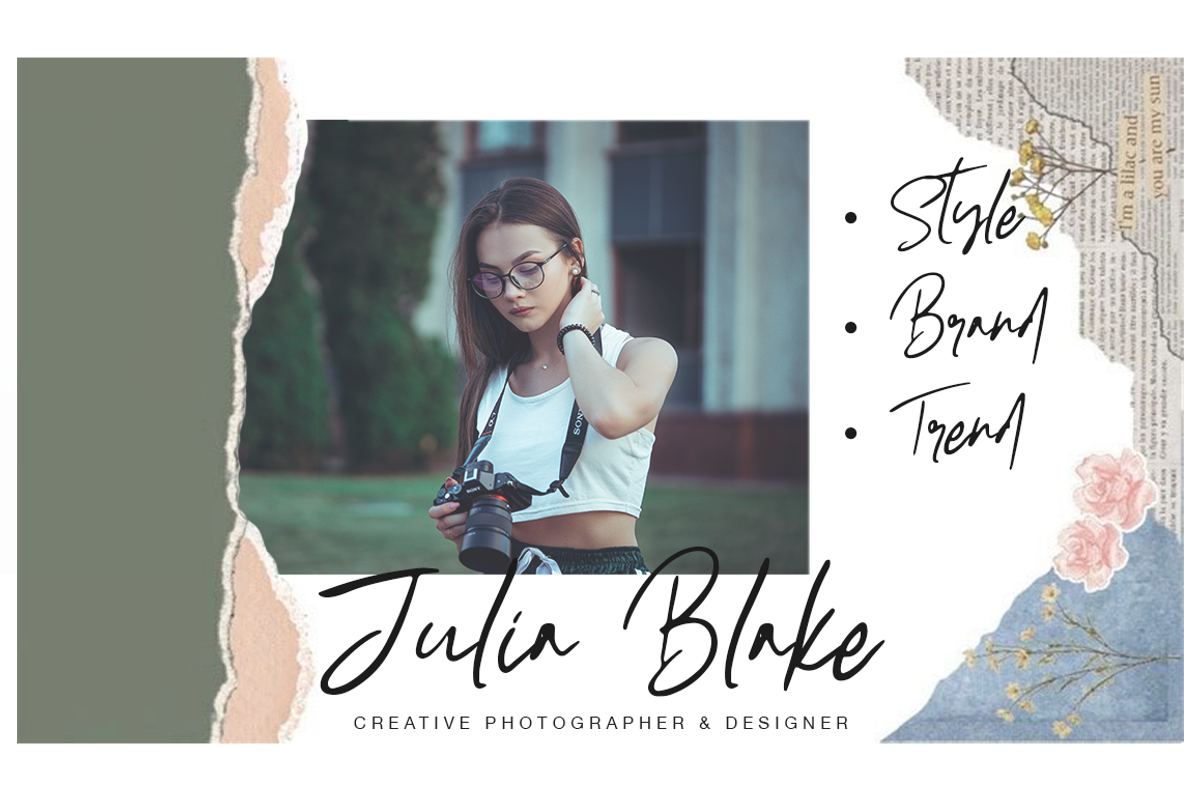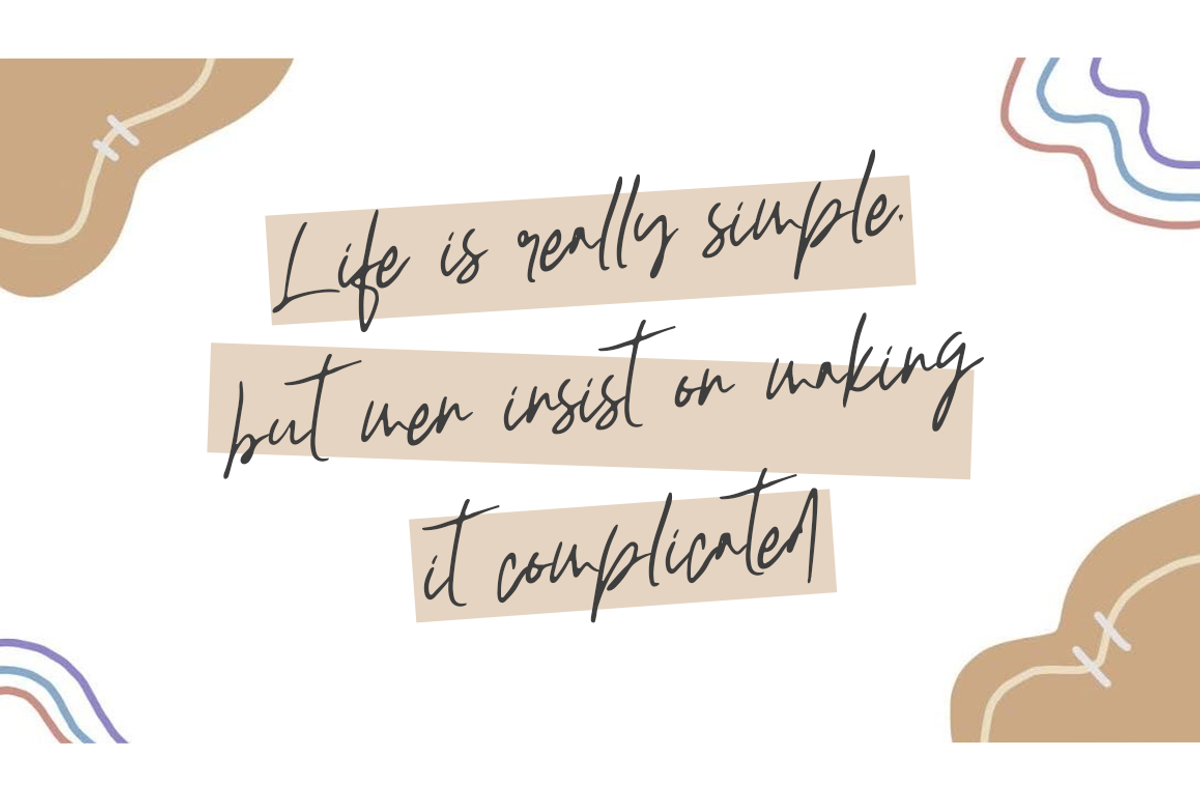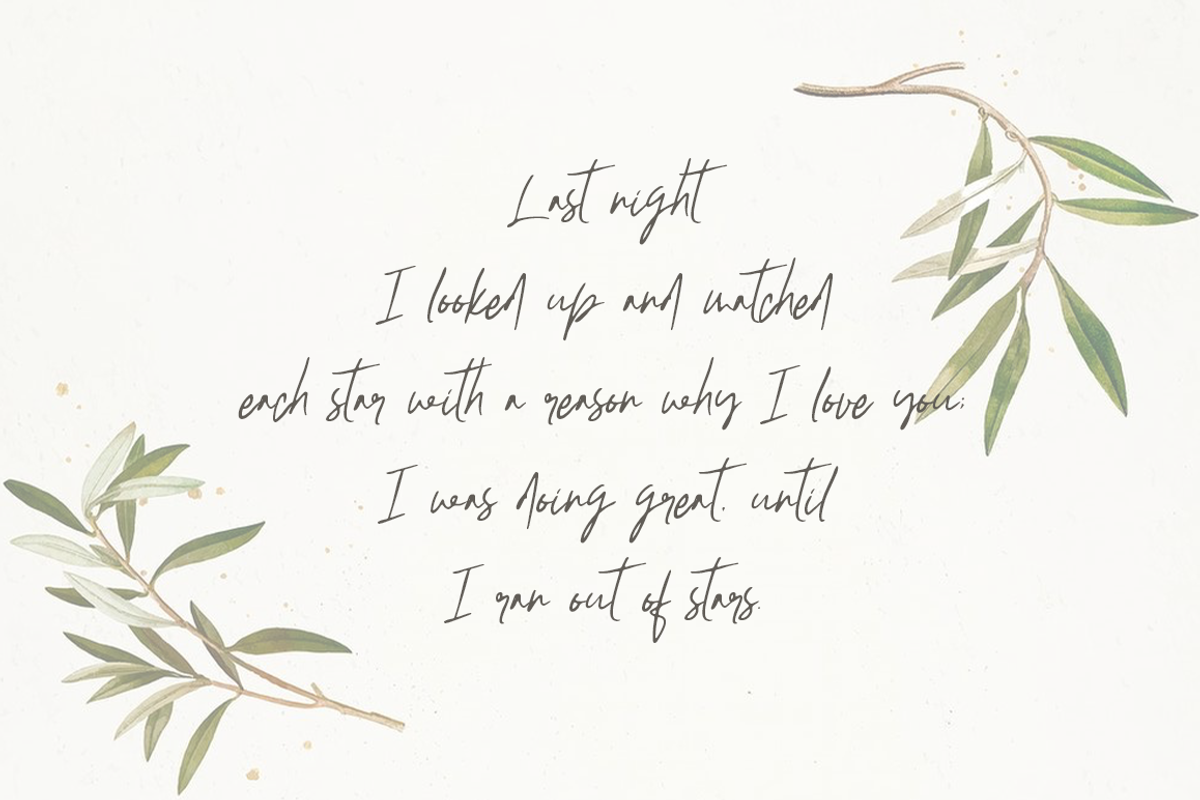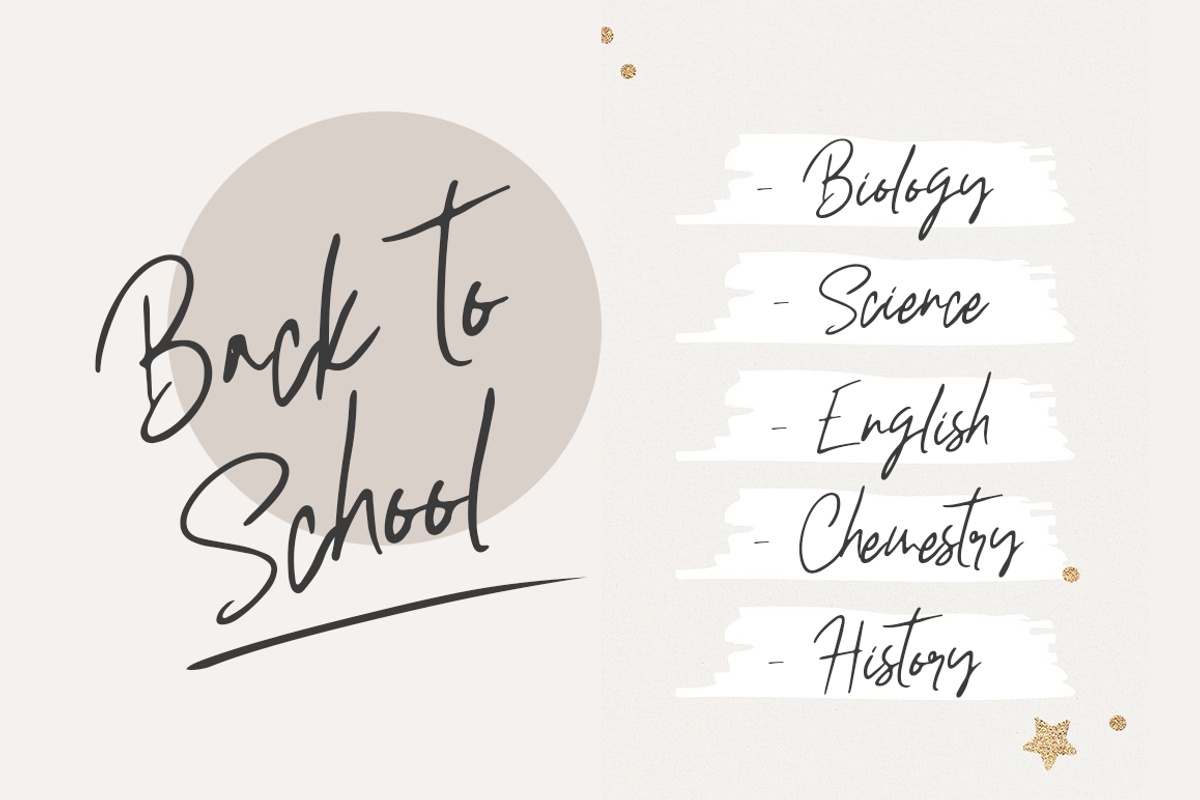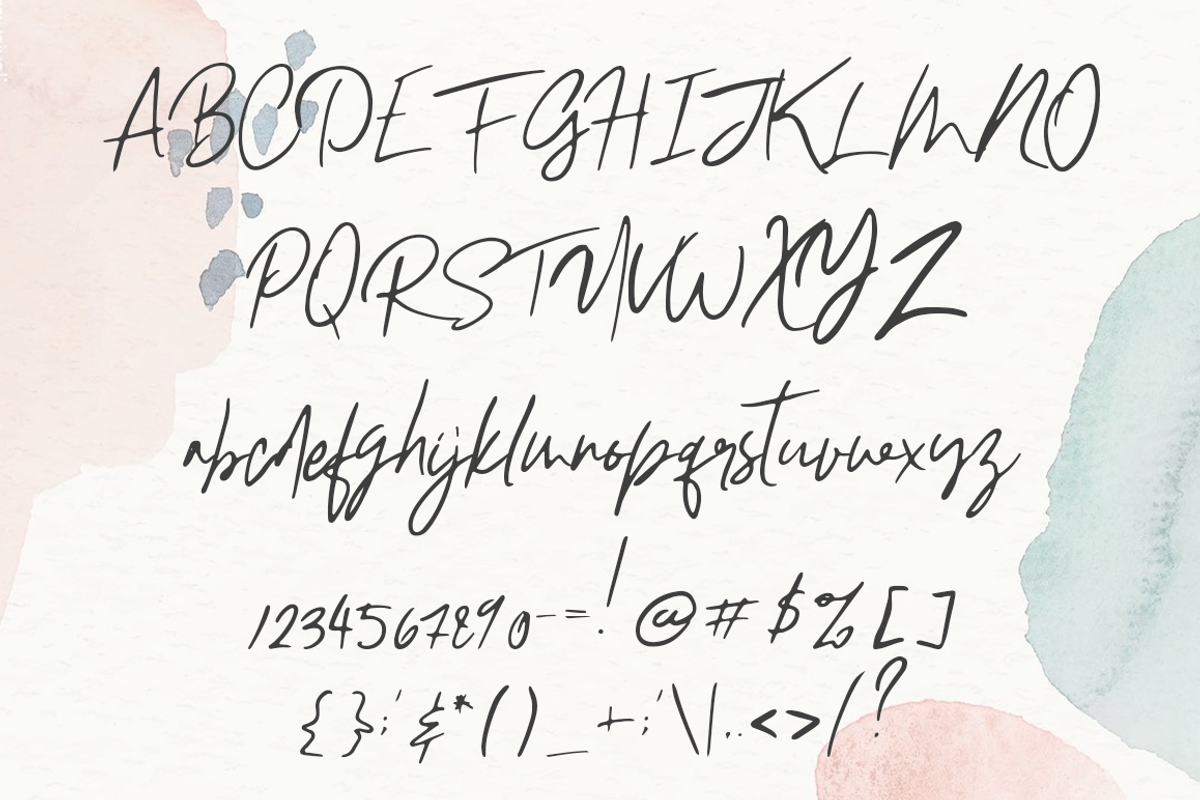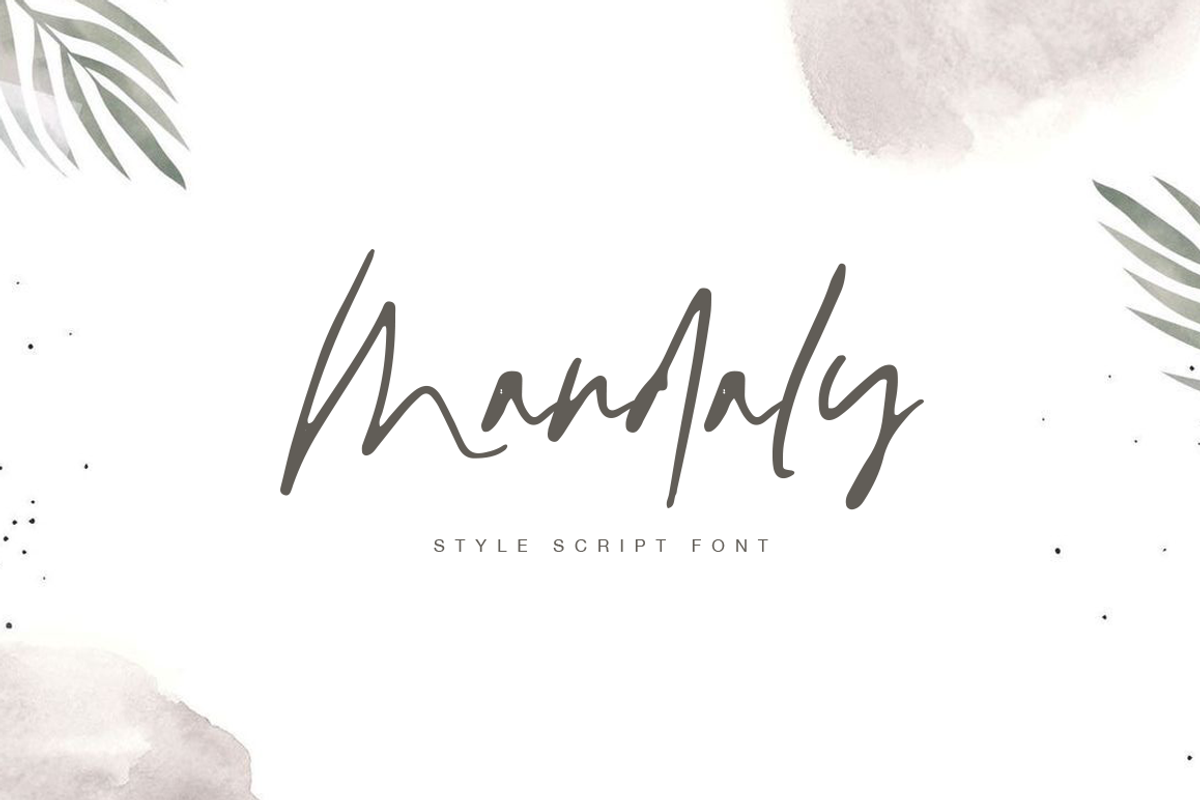
Mandaly
Mandaly - a new fresh handmade calligraphy font.
Very suitable for greeting cards, branding materials, business cards, quotes, posters, and more!This font are perfect for wedding postcard. Or you can create perfect and unique design of your logo, blog, stationery, marketing, magazines and more :)
UpperCase & Lowercase
Numerals & Punctuations